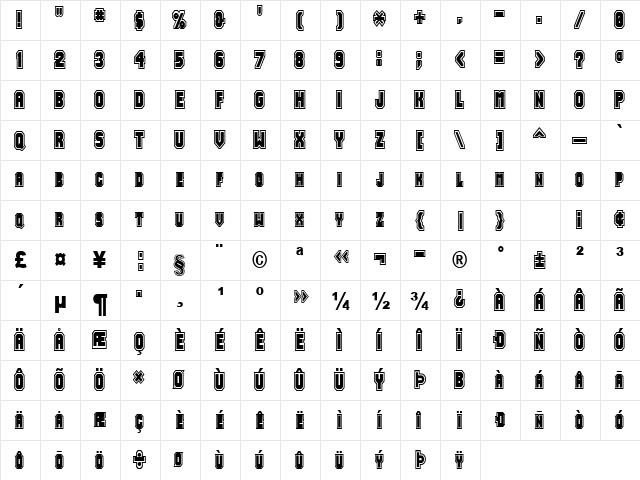
JerseyCondensed Normal
Design Context for JerseyCondensed Typeface
JerseyCondensed brings high-energy athletic personality to the page — its confident, muscular forms are built for impact. The condensed width makes it efficient for tight spaces without sacrificing legibility.
A natural choice for gym brands, fantasy sports, jersey lettering, and action-driven headlines.
Pro Tip: Use JerseyCondensed in all-caps headlines where its athletic energy can fully express itself. Pair with a solid, simple sans for supporting text.